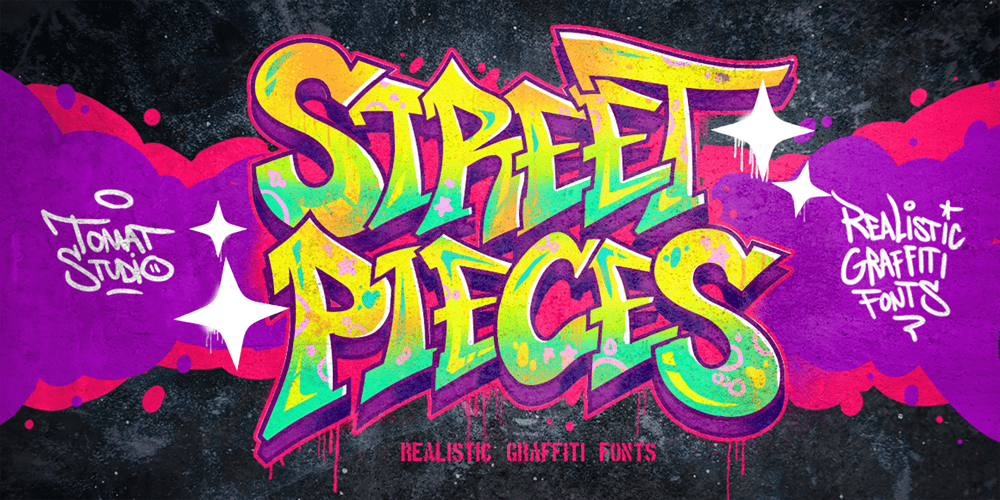
Sreet Pieces Font Family was designed by Cipto Bagus Prakarso and published by Tomatstudio. Sreet Pieces contains 2 styles and family package options. Now everyone can create simple pieces of graffiti in an easy way. With all our experiences in the real graffiti scene combined with our skill in creating fonts, we create these “Street Pieces.”This is a simple version of a wildstyle graffiti piece; you can clearly read the font; unlike heavy wildstyle, which not everyone can read clearly, your message is still clear with this font.It’s very easy to use, but for a better result, you should adjust the kerning and lead manually because the real graffiti is like that, and use your own graffiti style because there are no rules in graffiti. In this package, you’ll get two fonts. “Street Pieces Line” for the line, and “Street Pieces Fill” for the fill.Don’t forget to combine with “alternate” fonts; see the preview fonts for the sample; and also add a drop shadow or extrude effect to make it more realistic.